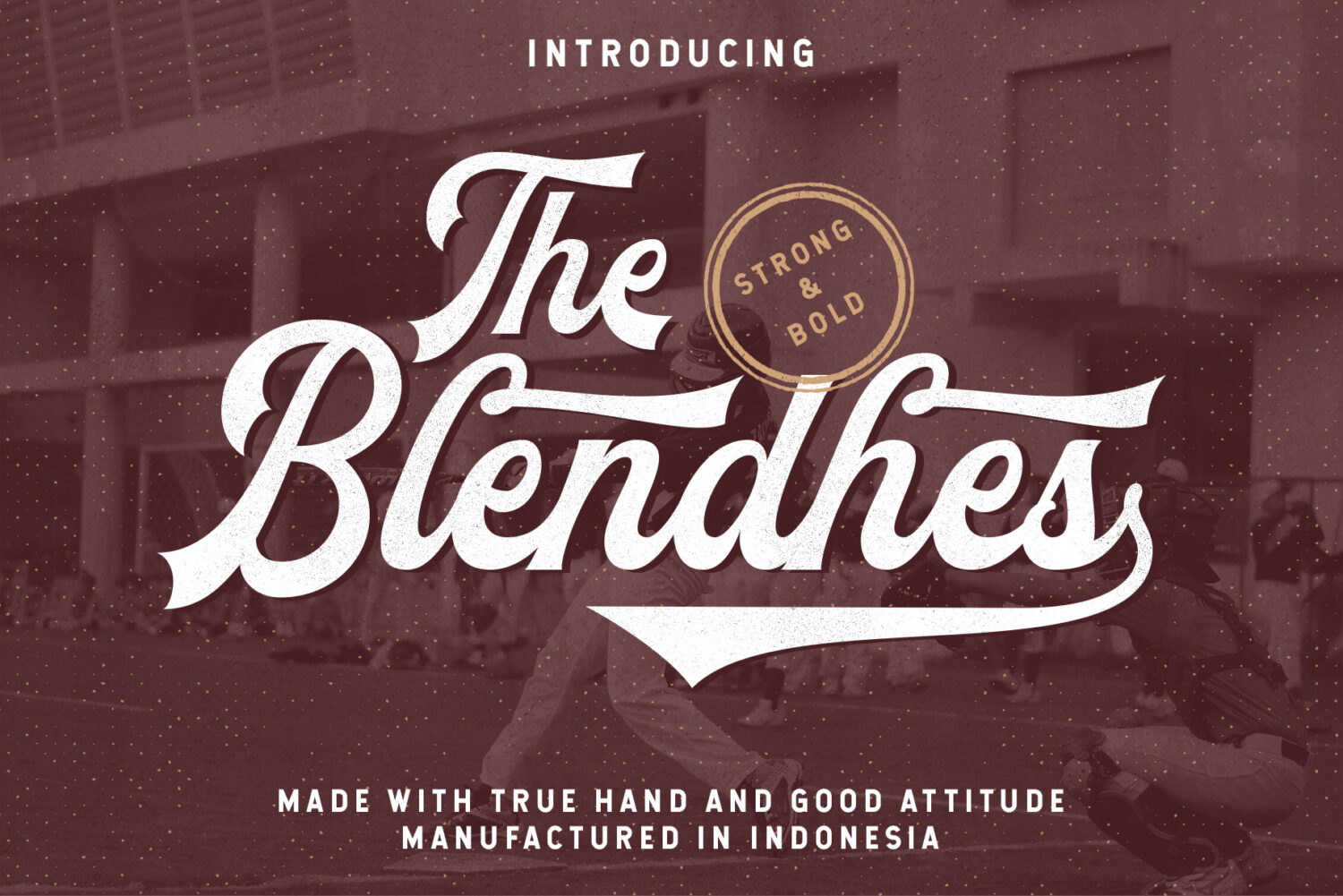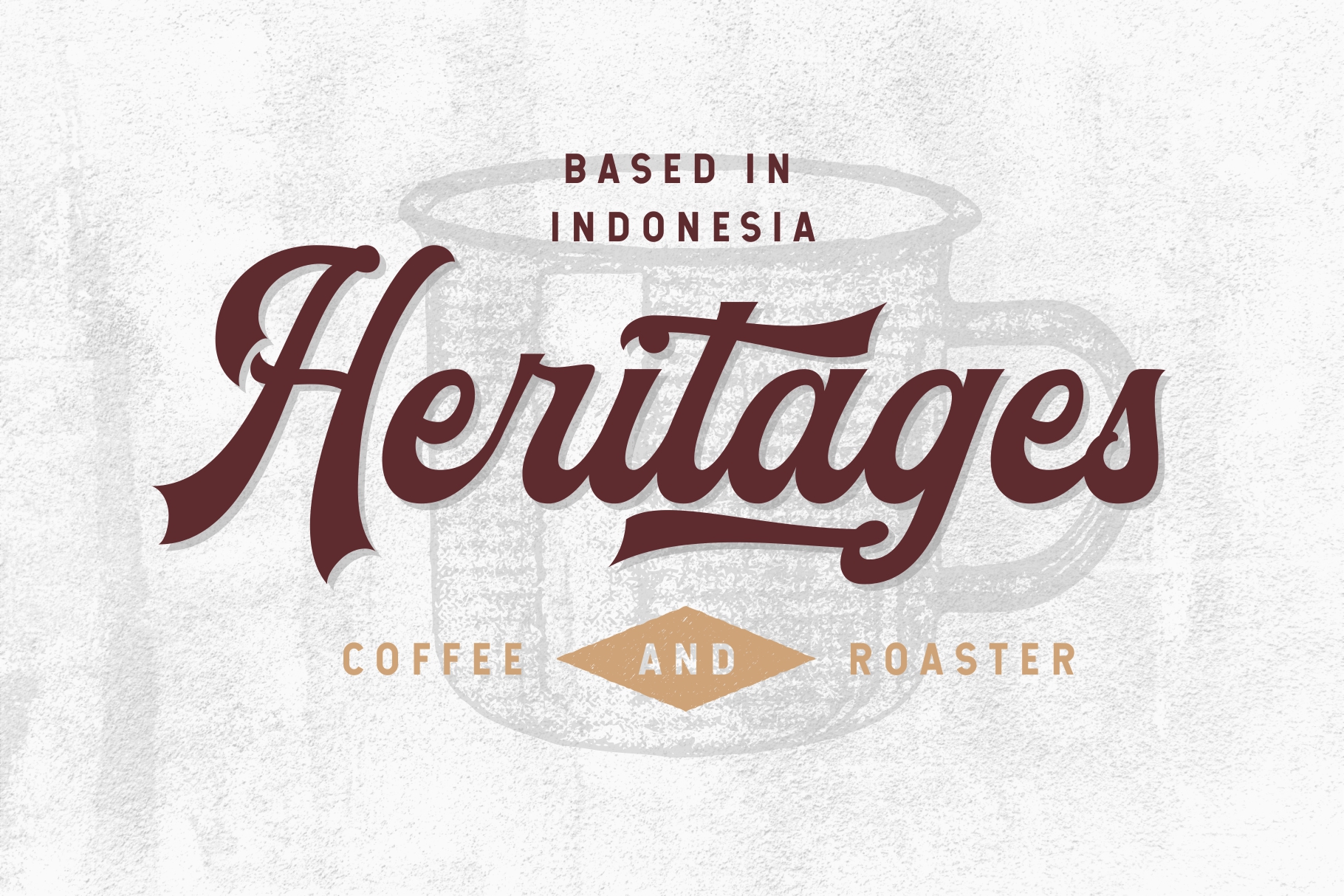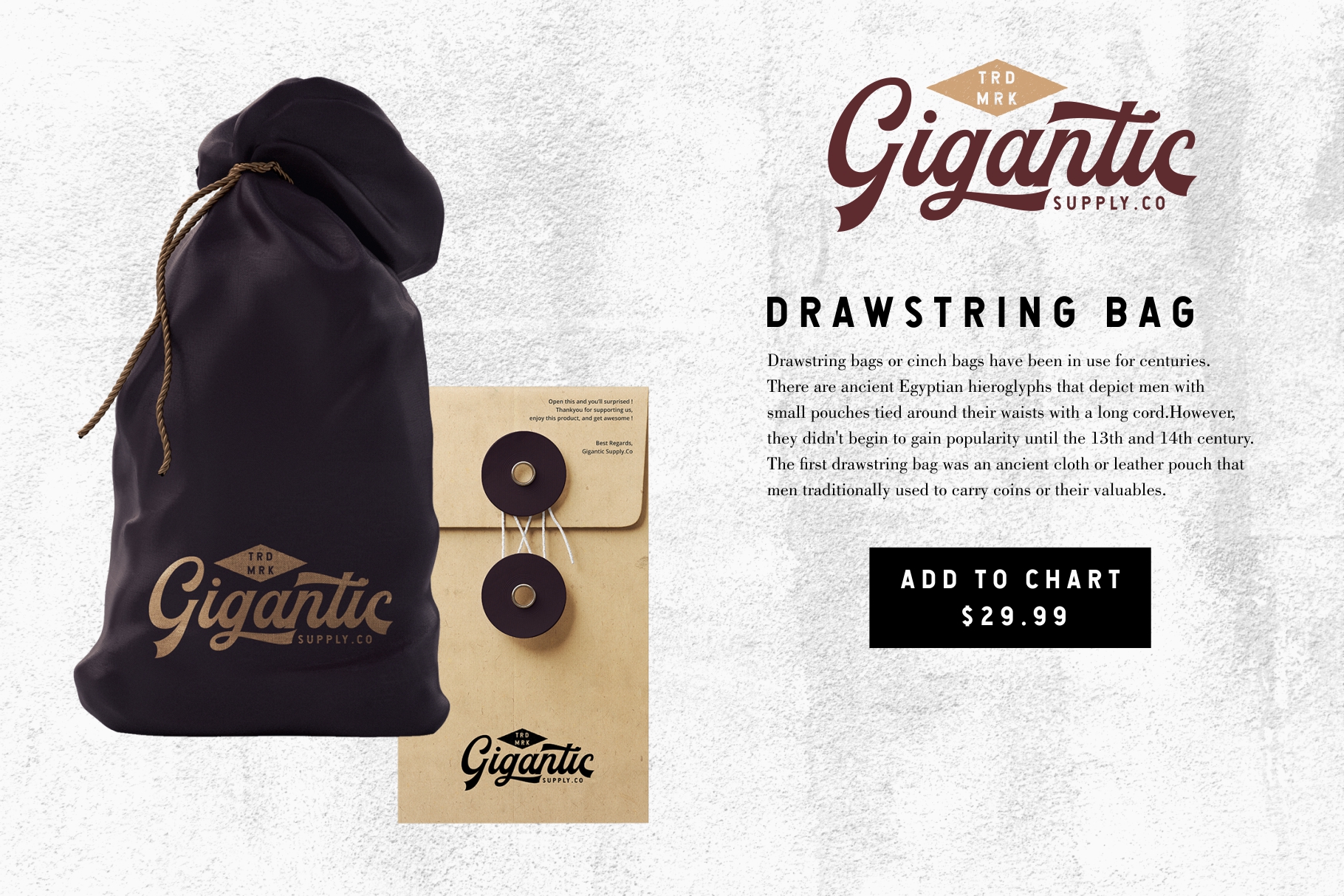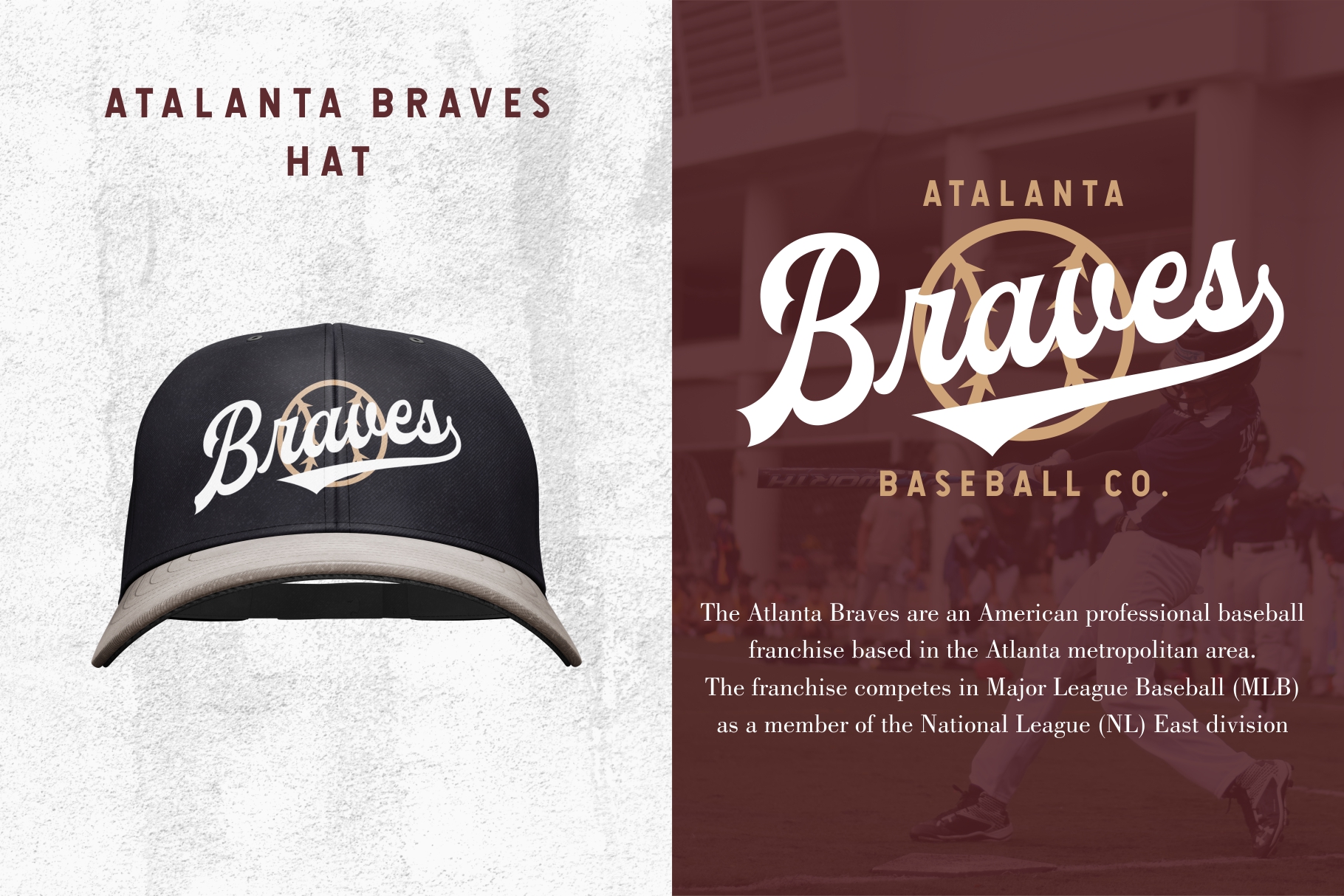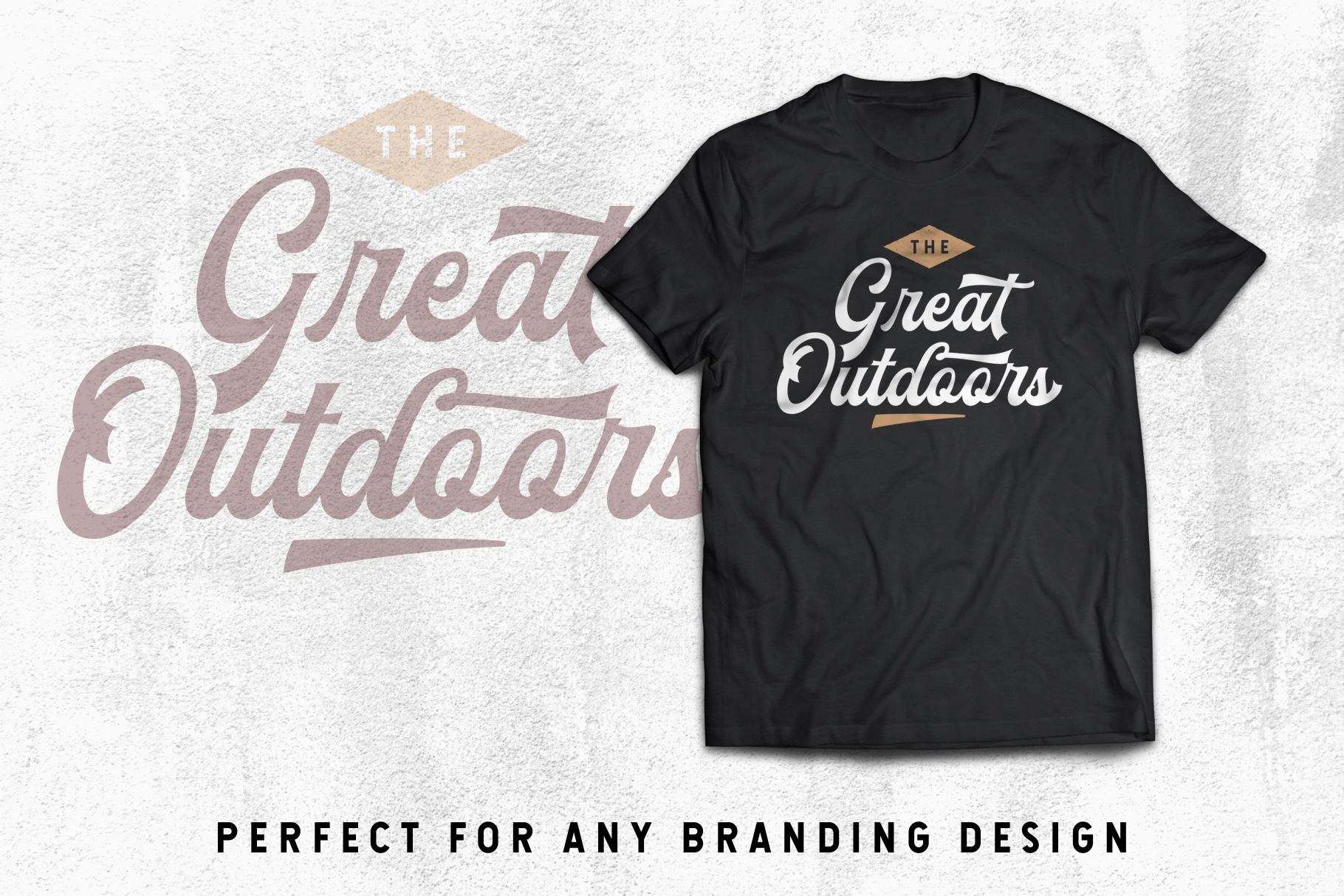
The Blendhes Free Font
The Blendhes Free Font is a strong bold script font inspired by Vintage baseball sport design. The Blendhes has a standard OpenType Features. With the OpenType Features, The Blendhes gives you so many options to create something awesome. Mix and match the alternate characters to add an attractive message to your design. This free typeface was designed by a talented Yudha Ageng. If you like it don’t forget to check out the full version.